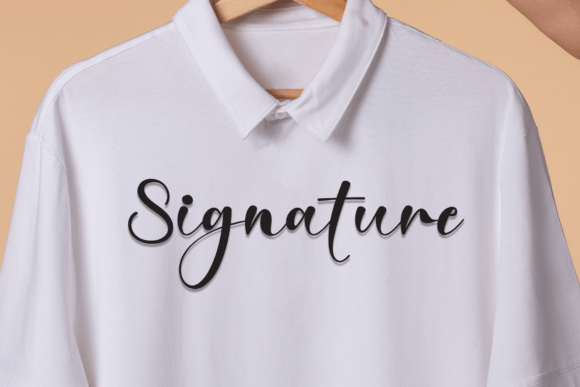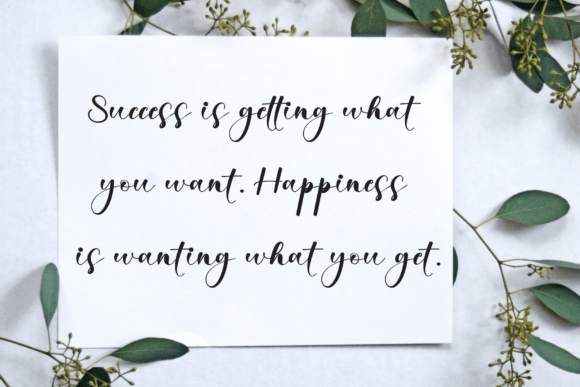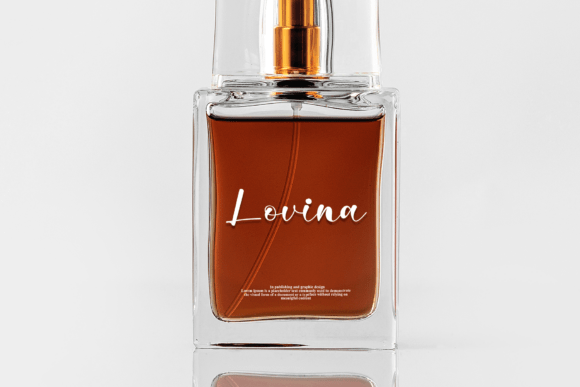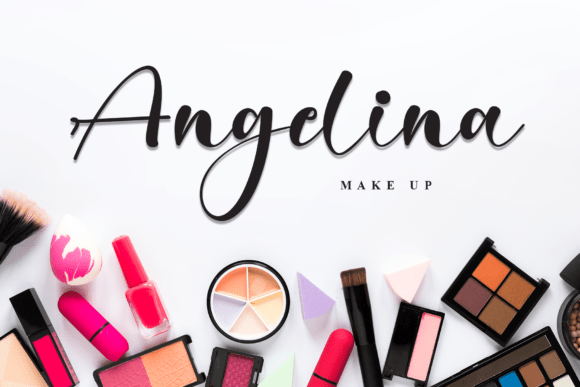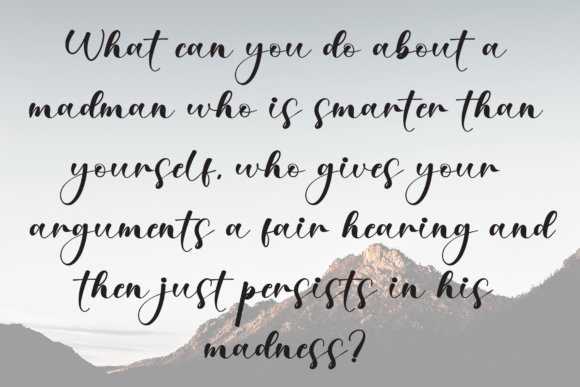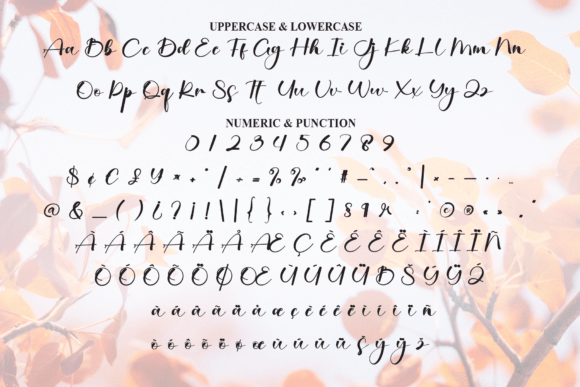
The Magic of Autumn Font: Elevating Your Designs with Elegance and Playfulness
I’ll never forget the time I was working on a wedding invitation project, and my client asked for a font that was both elegant and playful. I scoured the internet, trying out font after font, but nothing seemed quite right. That was until I stumbled upon Autumn Font. With its flowing curves and natural rhythm, it instantly captured the essence of the wedding’s rustic-chic theme. I knew right then and there that I had found the perfect fit.
A Personal Review of Autumn Font
- ✅ The elegant, handwritten script that adds a personal touch to any project
- ✅ The flowing curves and natural rhythm that give it a sense of movement and energy
- ✅ The versatility of the font, which works beautifully for invitations, branding, and social media
- ✅ The way it brings warmth, sophistication, and creativity to any project
While Autumn Font is an amazing addition to any design project, there are a few things to keep in mind. For example, some of the more intricate swashes and flourishes can get a bit lost at smaller font sizes. And, as with any script font, it can be a bit tricky to use in large blocks of text. But overall, these are minor quibbles in what is otherwise an exceptional font.
One thing to note is that Autumn Font may not be the best choice for very formal or traditional designs, as its playful nature may not fit the tone. Additionally, the font’s legibility can be affected by the use of certain swashes or flourishes, so it’s essential to test the font carefully before finalizing your design.
The Story Behind Autumn Font
Autumn Font was designed by a talented typographer who wanted to capture the essence of the autumn season in a font. Inspired by the changing leaves, the cozy warmth of hot chocolate, and the playful nature of fall festivities, the designer created a font that would bring a touch of elegance and playfulness to any design project.
Q: Is Autumn Font suitable for body text?
A: While Autumn Font is beautiful, it’s best suited for headings, titles, and short blocks of text. For longer blocks of text, a more traditional serif or sans-serif font may be more readable.
Q: Does Autumn Font come with any special features?
A: Yes! Autumn Font comes with a range of OpenType features, including swashes, stylistic alternates, and glyphs. These features allow you to customize the font to suit your design needs.